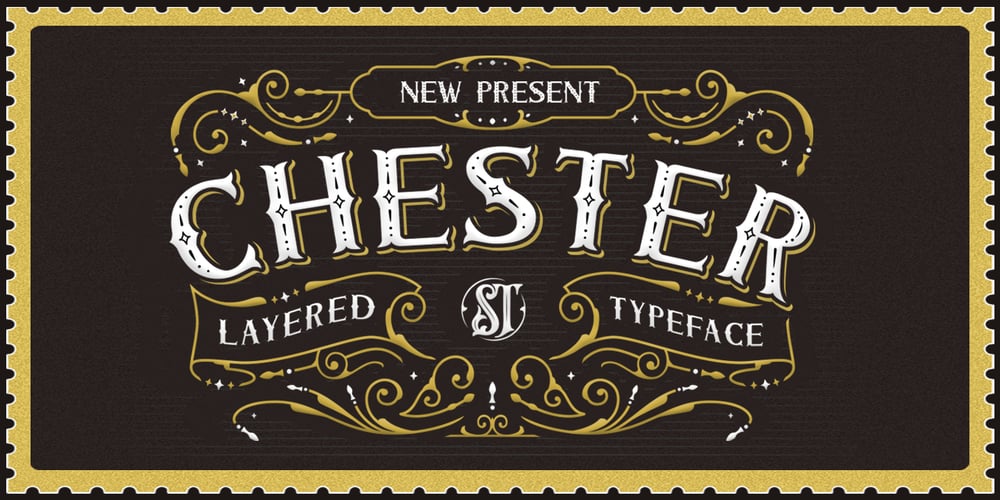
Chester Font Layer Font Family was designed by panji nugroho and published by Storictype. Chester Font Layer contains 6 styles and family package options. Introducing new layered font family it’s call Chester , inspired from combine old postcard stamp and rustic sign painting with have unique decorative shapes. This is collection of type with a layered type system, many possibilities combination and options with 5 font system that can be layered to create different effect ( Basic , Inline, Inner dot, Gradient Inline, Shadow outline & Drop Shade ).You can use this font for various purposes.such as logo, product packaging, labeling, logo, classic shop, badges, quote, sign ,movie title, t-shirt, posters, lable, greetingcard, letterhead, book cover, any artwork.